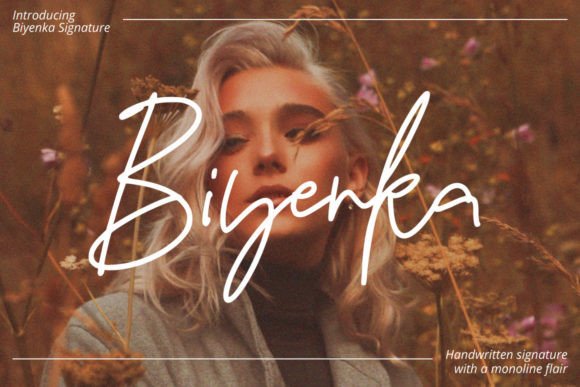
The Biyenka Signature Font: Elevate Your Designs with Elegance
I still remember the time I was working on a wedding invitation project, and my client asked me to create a custom design that exuded elegance and sophistication. I scoured the internet for the perfect font, but nothing seemed quite right. That was until I stumbled upon the Biyenka Signature font. Its delicate letterforms and flowing curves instantly captured the romantic and feminine look I was going for. In this article, I’ll share my experience with the Biyenka Signature font, its features, and how to make the most of it in your designs.
- ✨ Elegant and sophisticated: Biyenka Signature is perfect for adding a touch of luxury to your designs.
- ✅ Delicate letterforms: The font’s intricate details make it ideal for wedding invitations, greeting cards, and other special occasions.
- 💕 Romantic and feminine: The font’s flowing curves and lines evoke a sense of romance and whimsy.
While Biyenka Signature is an excellent font, there are a few things to keep in mind:
- ⚠️ Limited use in body text: Due to its elegant and cursive nature, Biyenka Signature may not be the best choice for long blocks of text.
- 🤔 Requires attention to spacing: To ensure optimal readability, you may need to adjust the spacing between letters and words.
- Experiment with the font’s OpenType features, such as stylistic alternates and glyphs, to add visual interest.
- Explore the font’s glyphs and stylistic alternates to create unique variations.
The Biyenka Signature font was inspired by the work of Alexandra Biyenka, a renowned designer known for her elegant and sophisticated typography. With a passion for calligraphy and hand-lettering, Alexandra aimed to create a font that would evoke a sense of romance and luxury.
| Font Name | Biyenka Signature Font |
| Author | Tebaltipis.std |
A: Biyenka Signature is perfect for adding a touch of elegance to your designs, such as wedding invitations, greeting cards, and other special occasions.
Q: Is Biyenka Signature suitable for body text?
A: While Biyenka Signature is an elegant font, it may not be the best choice for long blocks of text due to its cursive nature and delicate letterforms.